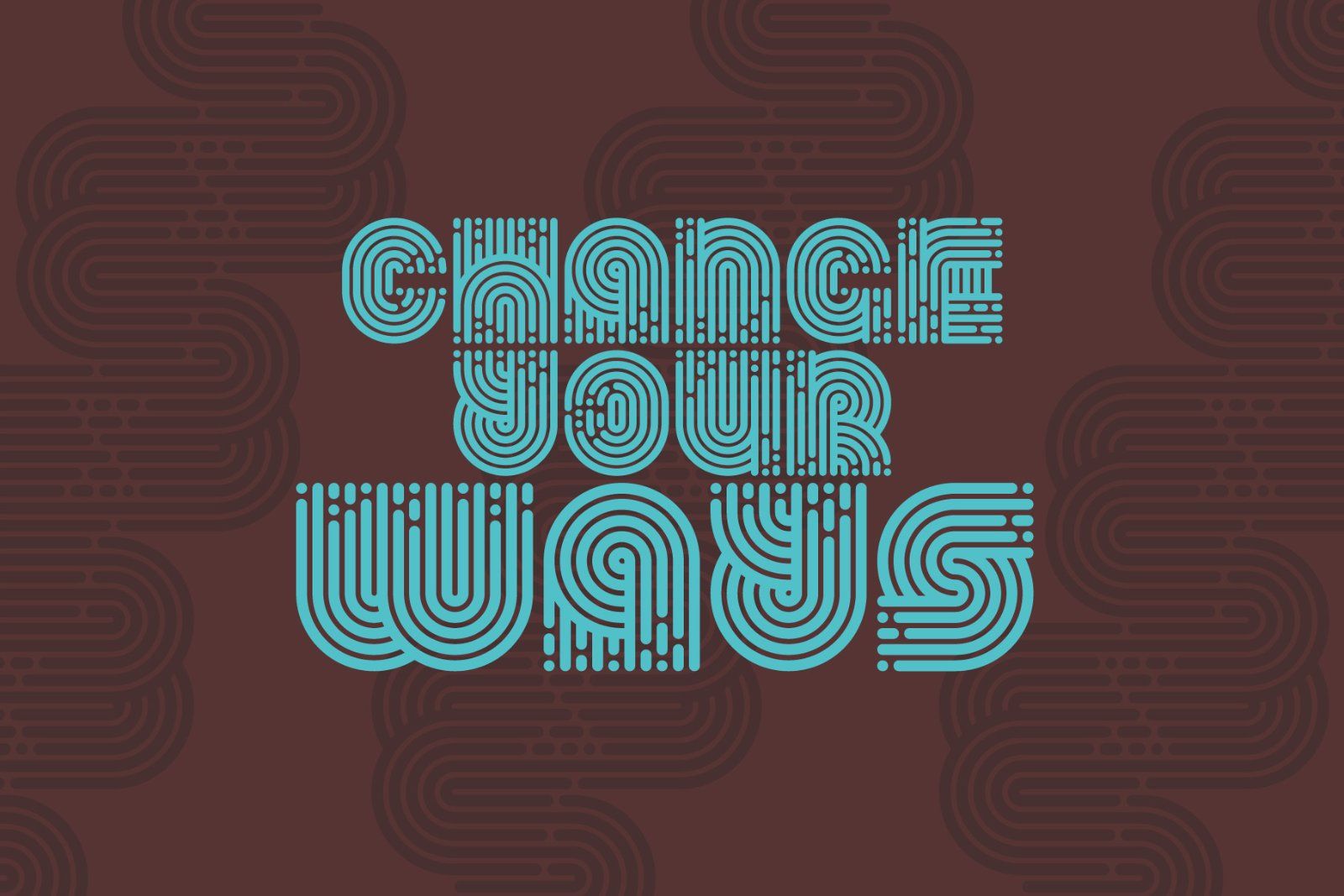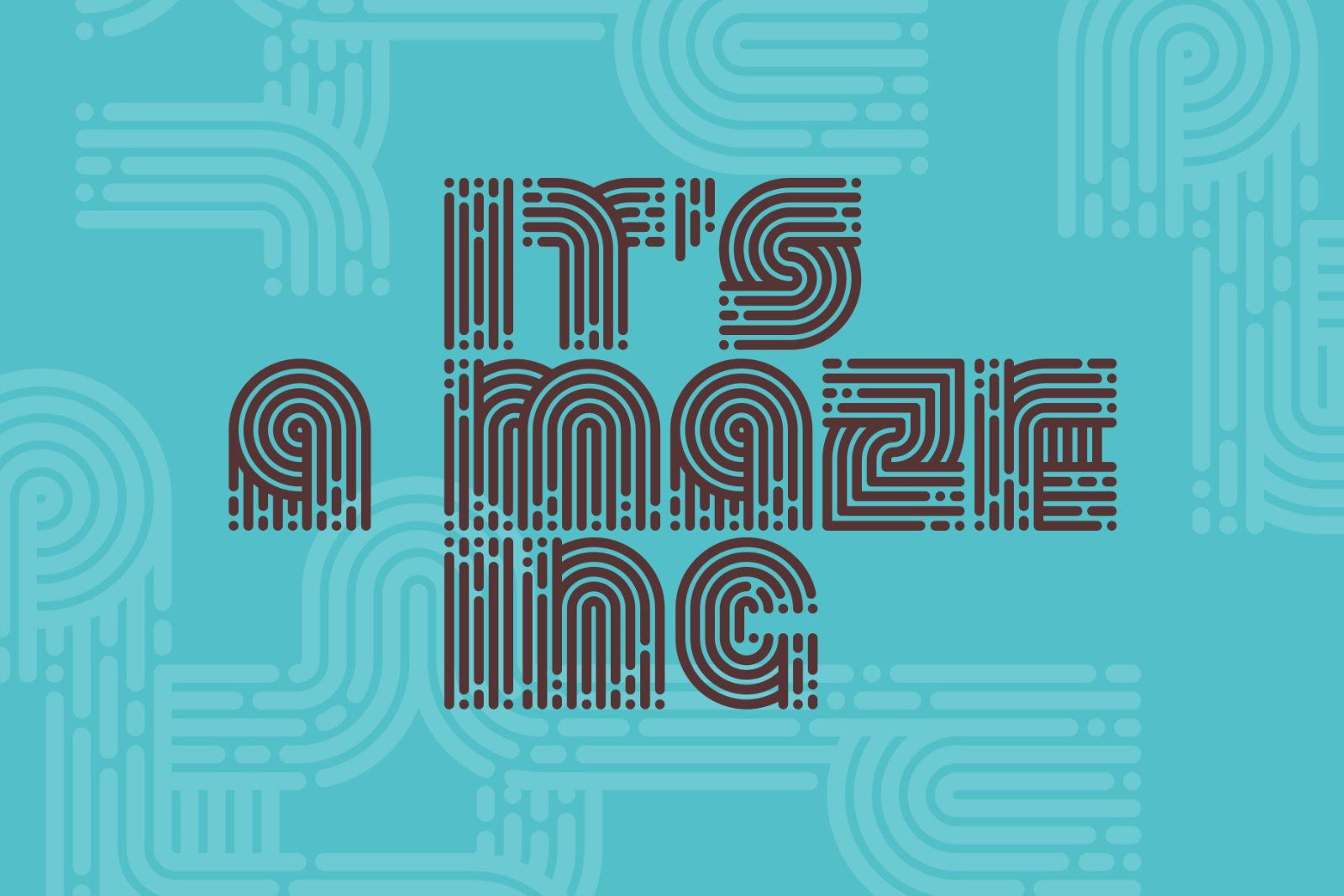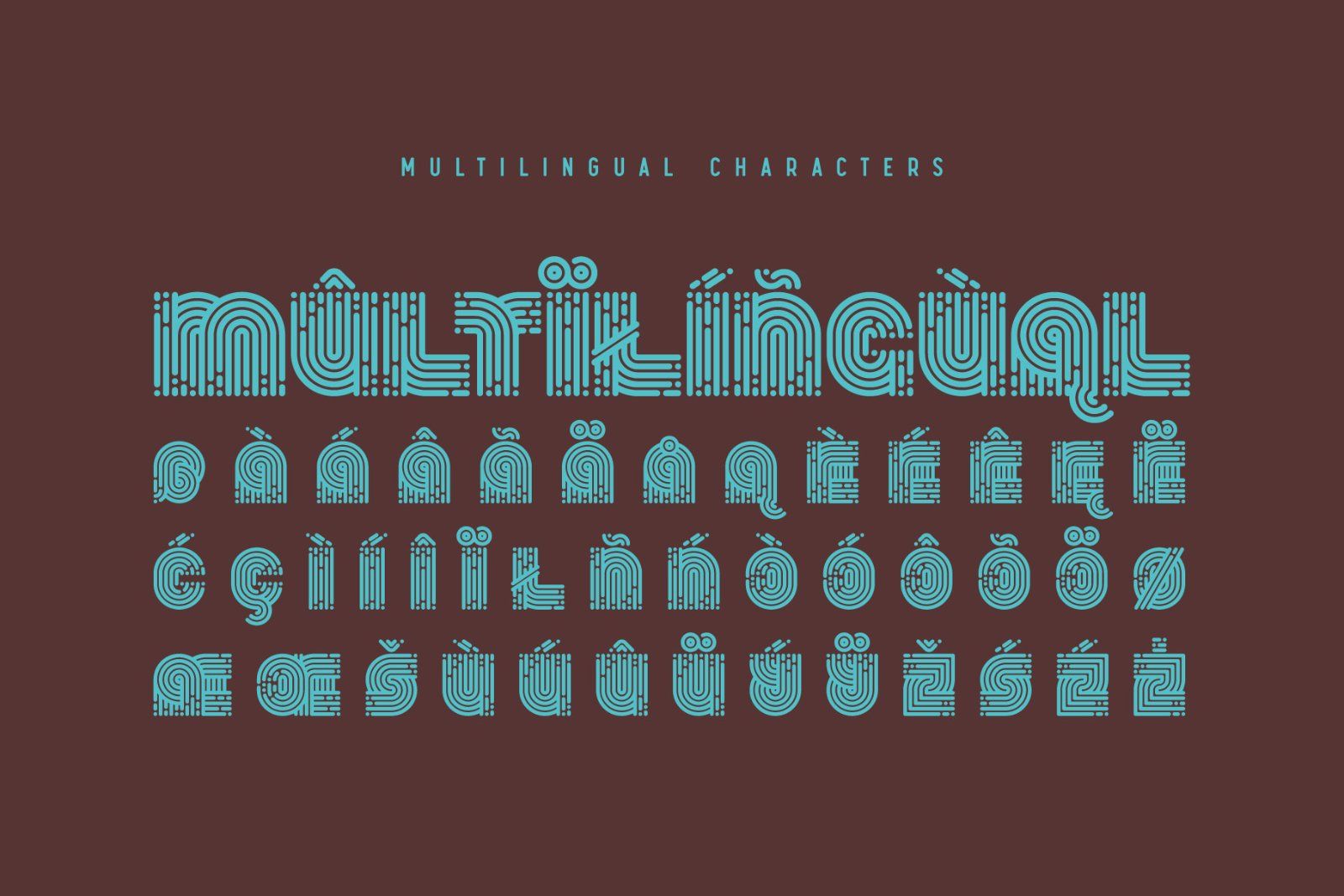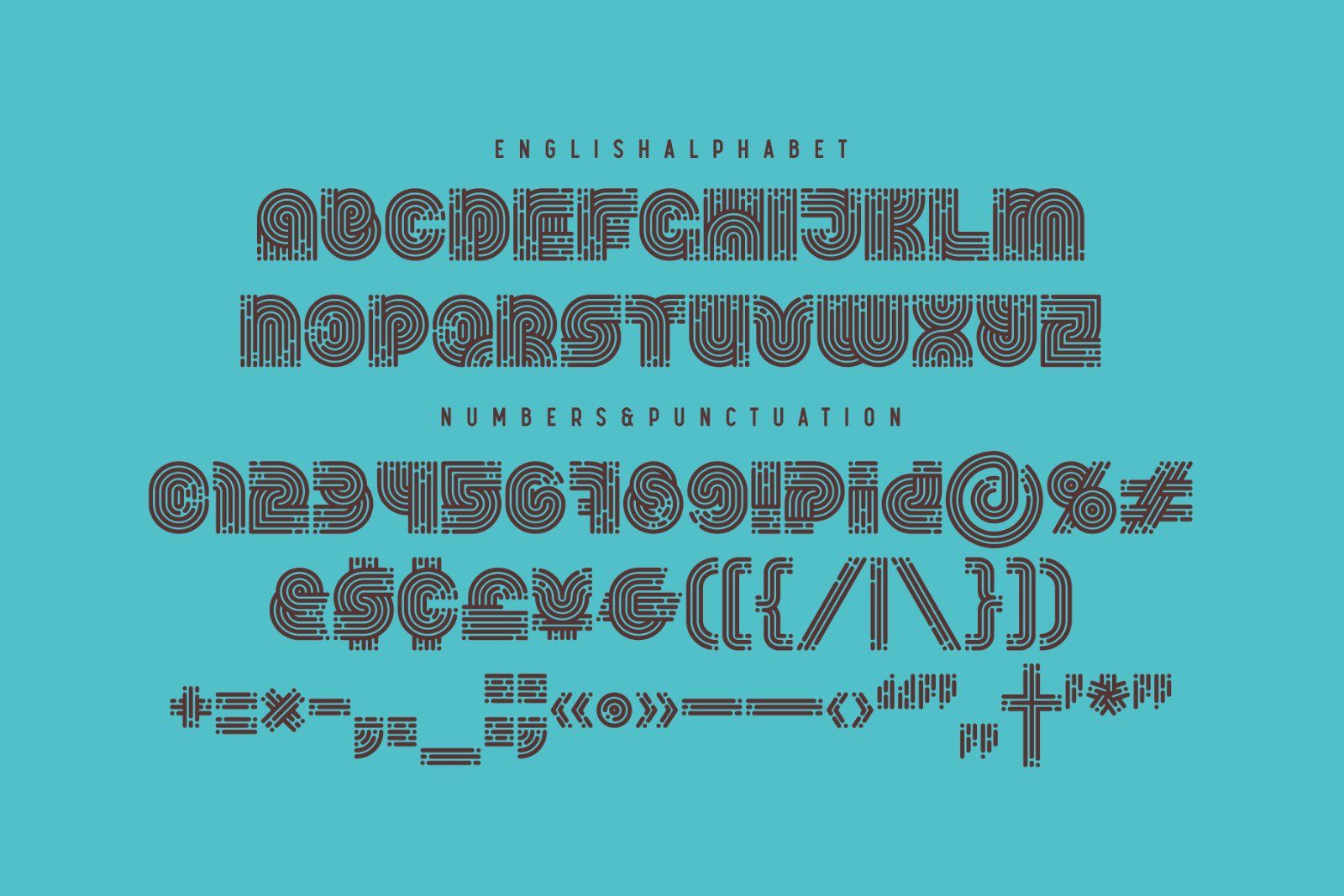
Hello! Introducing a geometric style font — Stripy Matey. It's a vintage look smooth typeface built of dashed flowing lines. Stripy Matey font has multilingual support (check out a screenshot with available letters and signs).